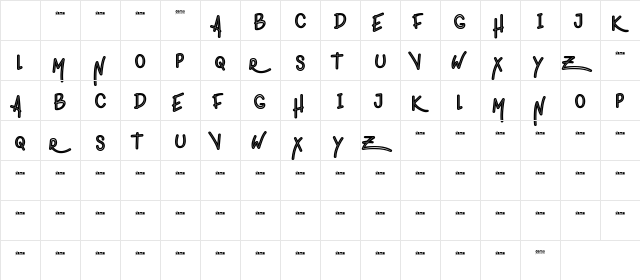
Complete ligera rouden Decorative glyph index. Displaying only characters natively supported by ligera rouden Decorative font.
ligera rouden is built around its visual character rather than neutral utility - its distinctive forms are designed to make an impression at display sizes.
Font Pairing: Pair with a clean neutral sans-serif for body copy to let ligera rouden's character lead without overwhelming the composition.
Pro Tip: Use ligera rouden exclusively at display sizes - it was designed to be seen, not read at length. Let a neutral companion handle body copy.